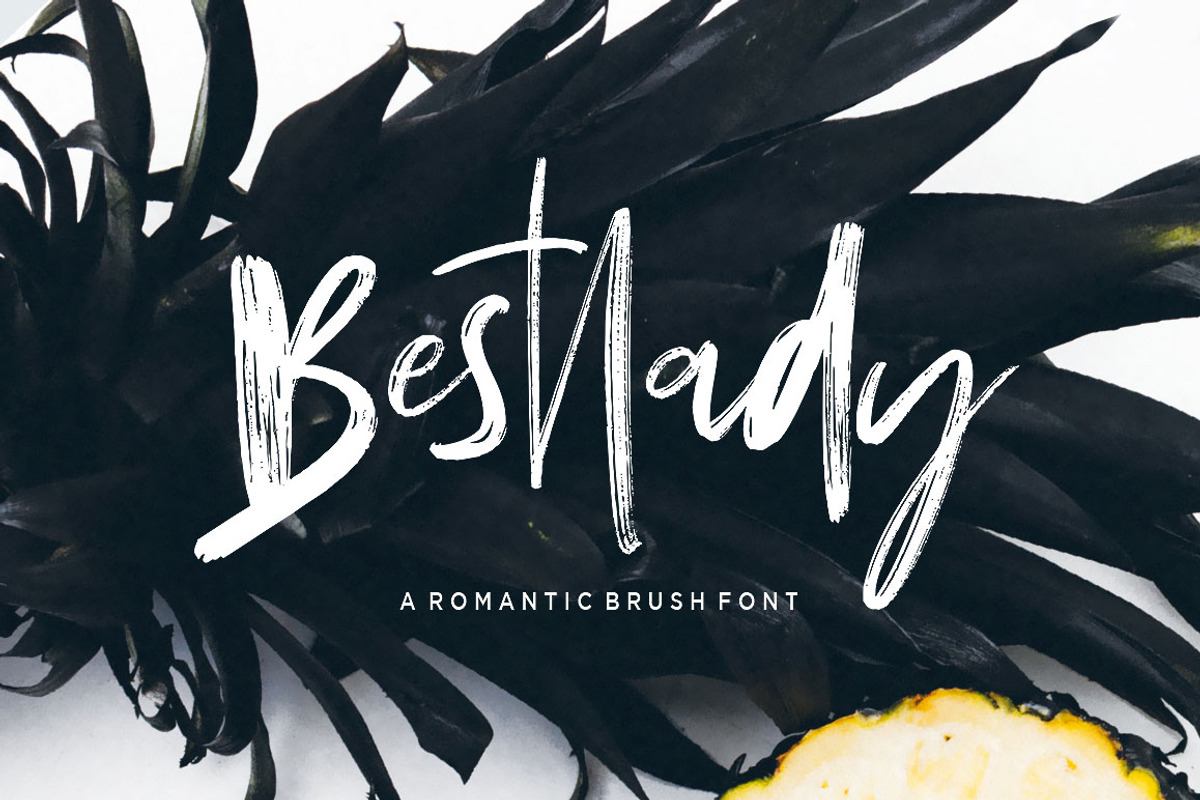
Bestlady Brush Font Free Download is a bold and expressive brush script that brings a lively, hand-drawn feel to your designs. With its thick, fluid strokes and vibrant character, this font is perfect for branding, posters, social media graphics, t-shirt designs, and any project that needs an artistic, energetic touch.
The font’s unique texture and organic flow make it ideal for designs that demand attention and personality. Whether you’re creating a creative logo, a dynamic headline, or a fun event flyer, Bestlady Brush Font Free Download adds a modern and artistic flair to your typography.